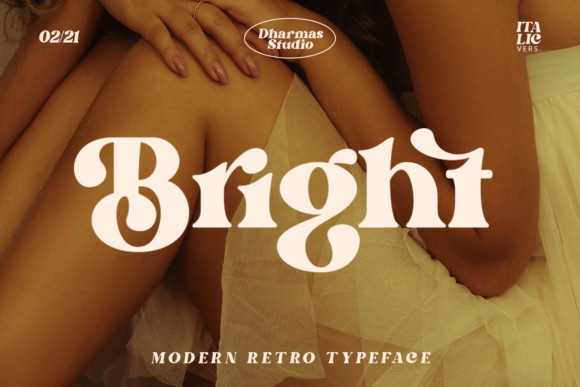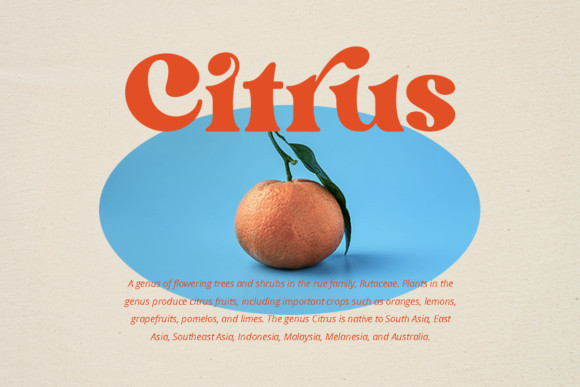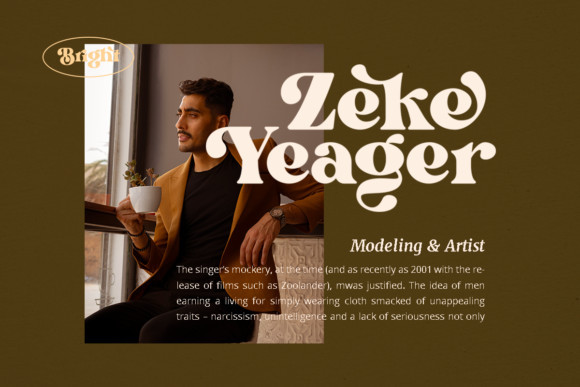
Bright Font
Bright is a stylish serif font. It has both a modern and retro look – clear, bold and fun. Perfect for layout designs with a look akin to the 60s or 70s.